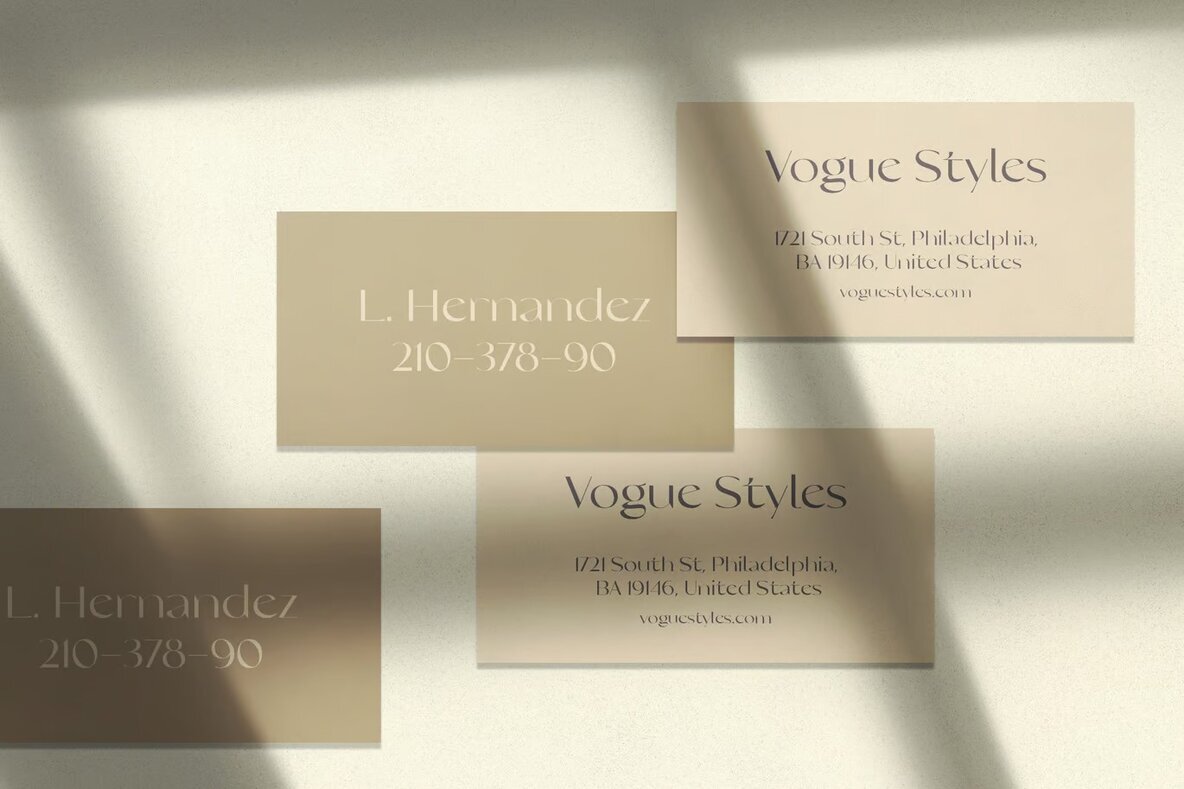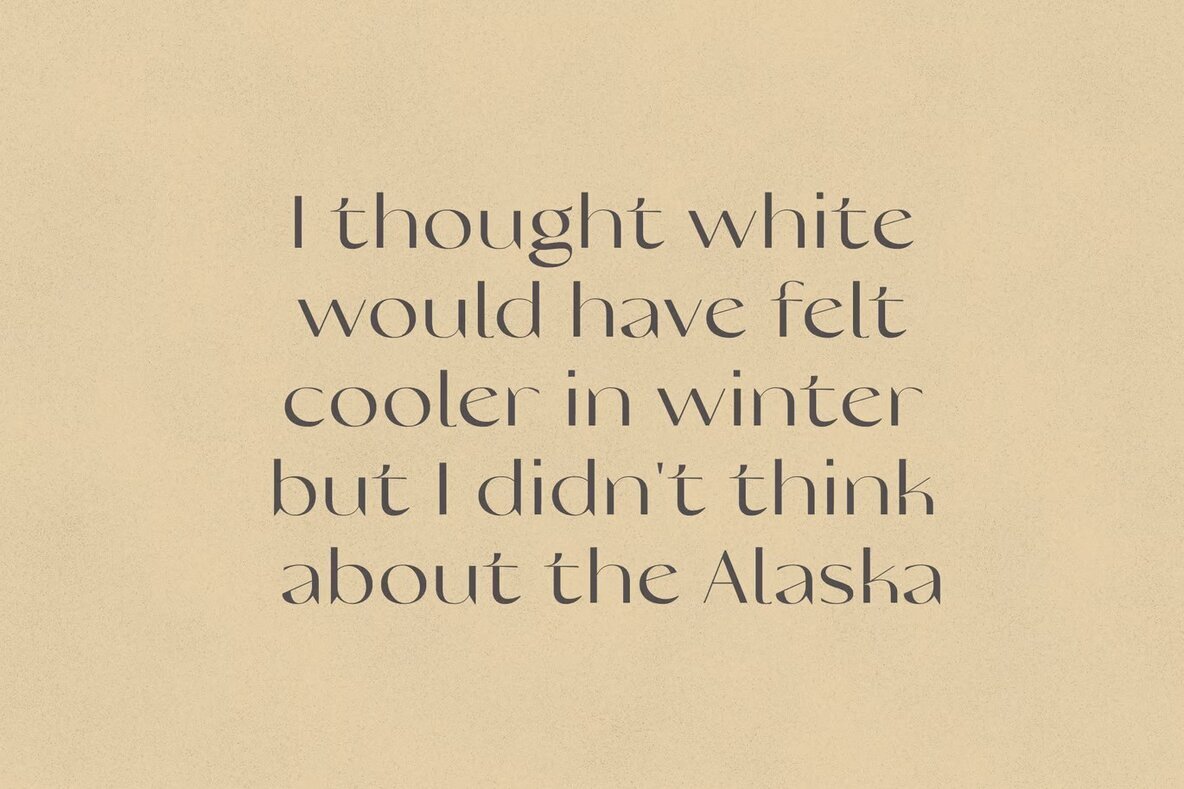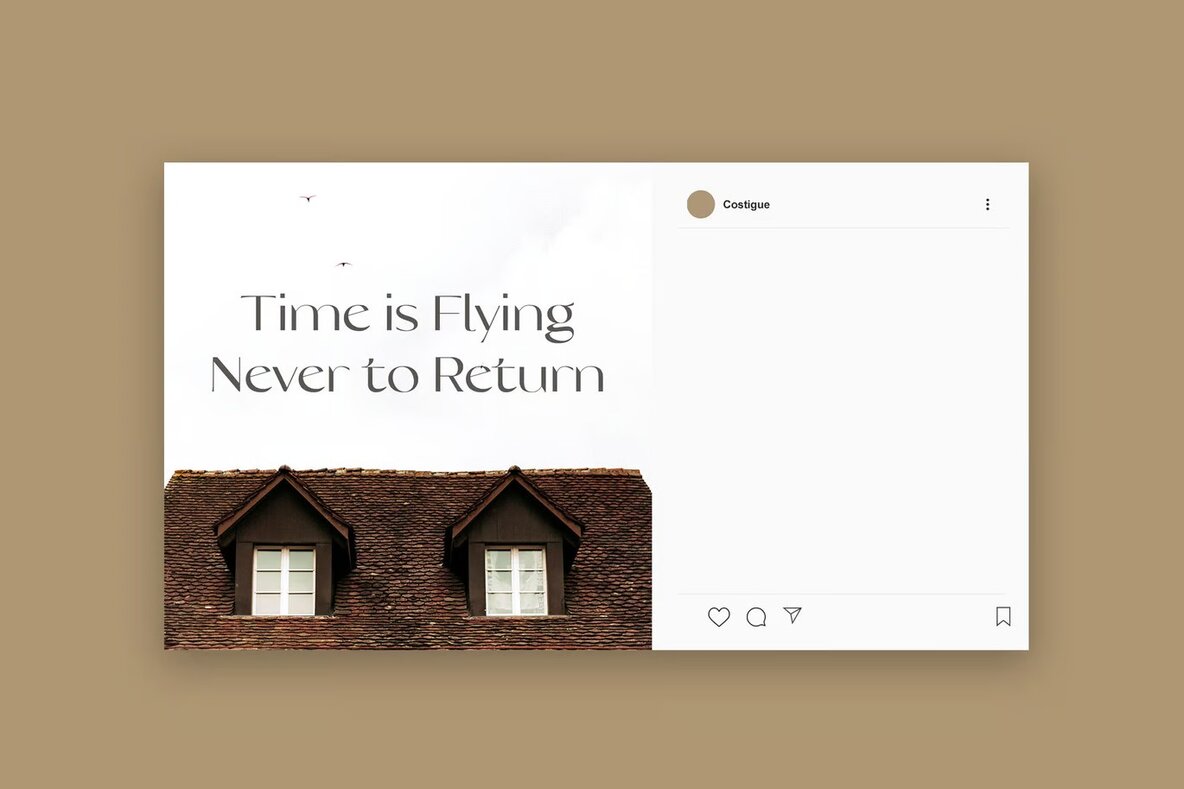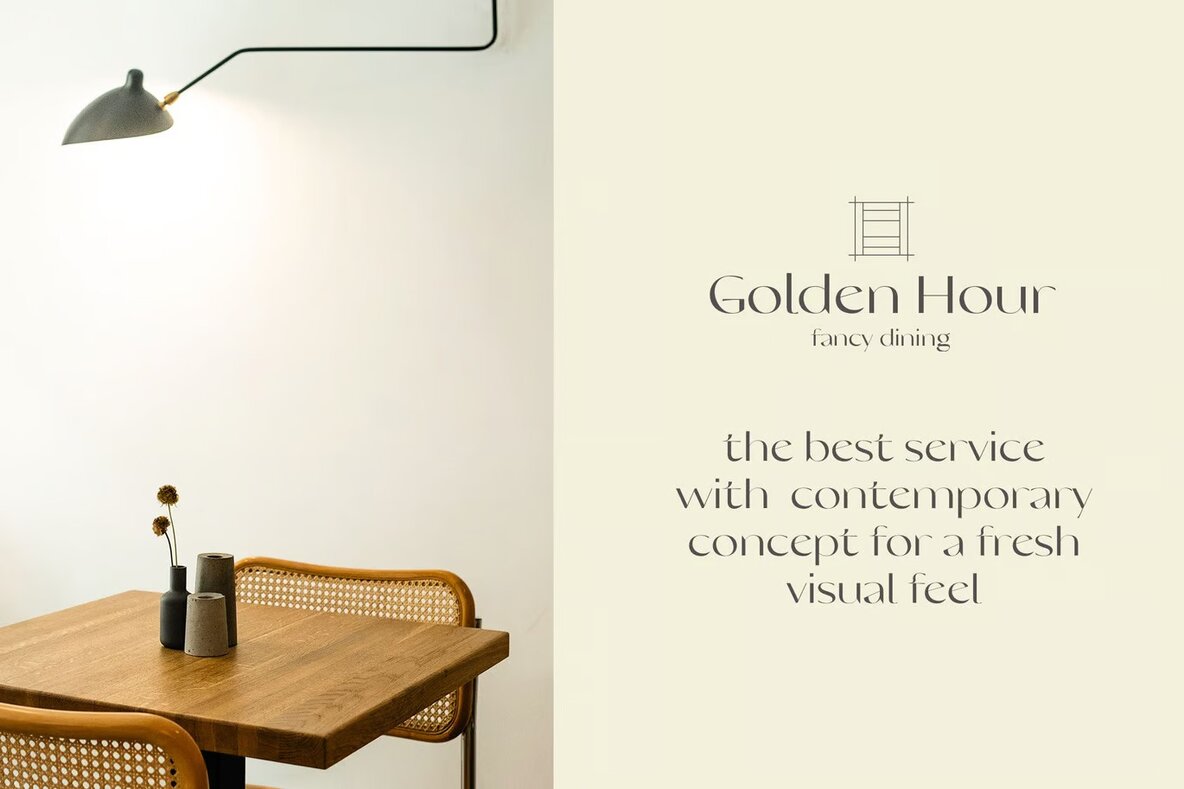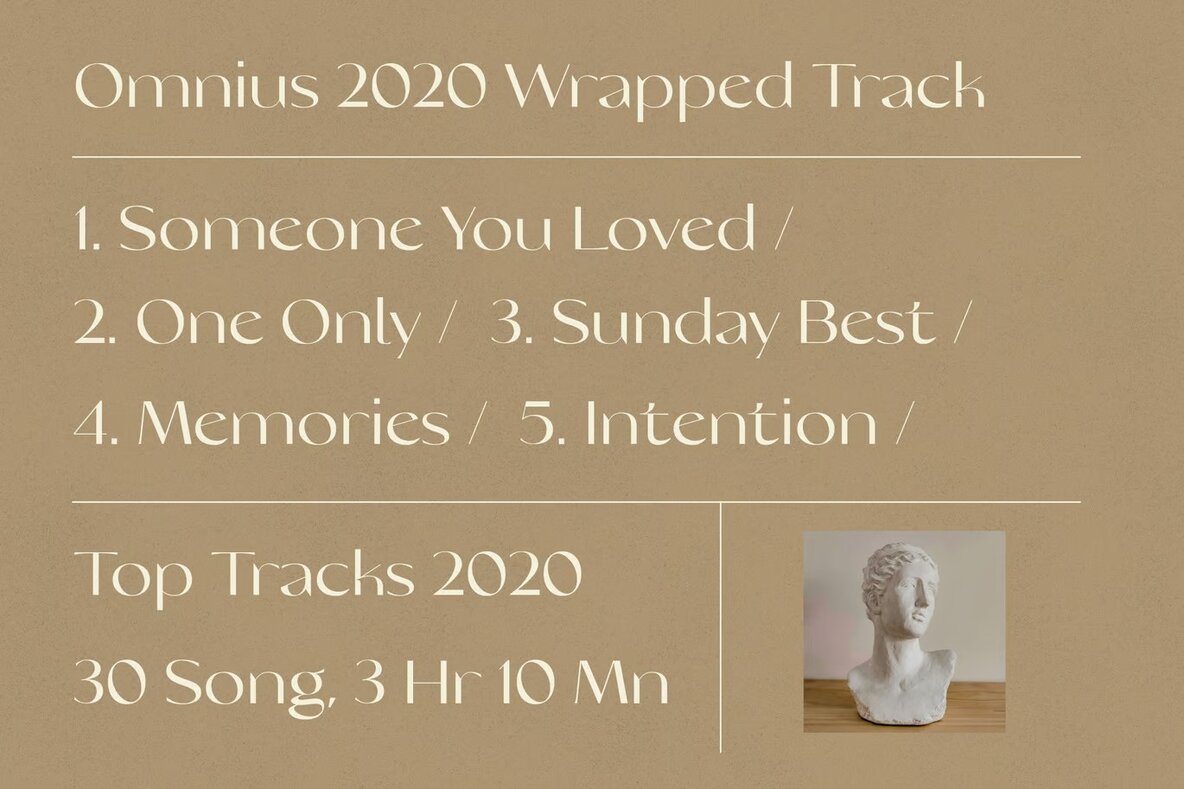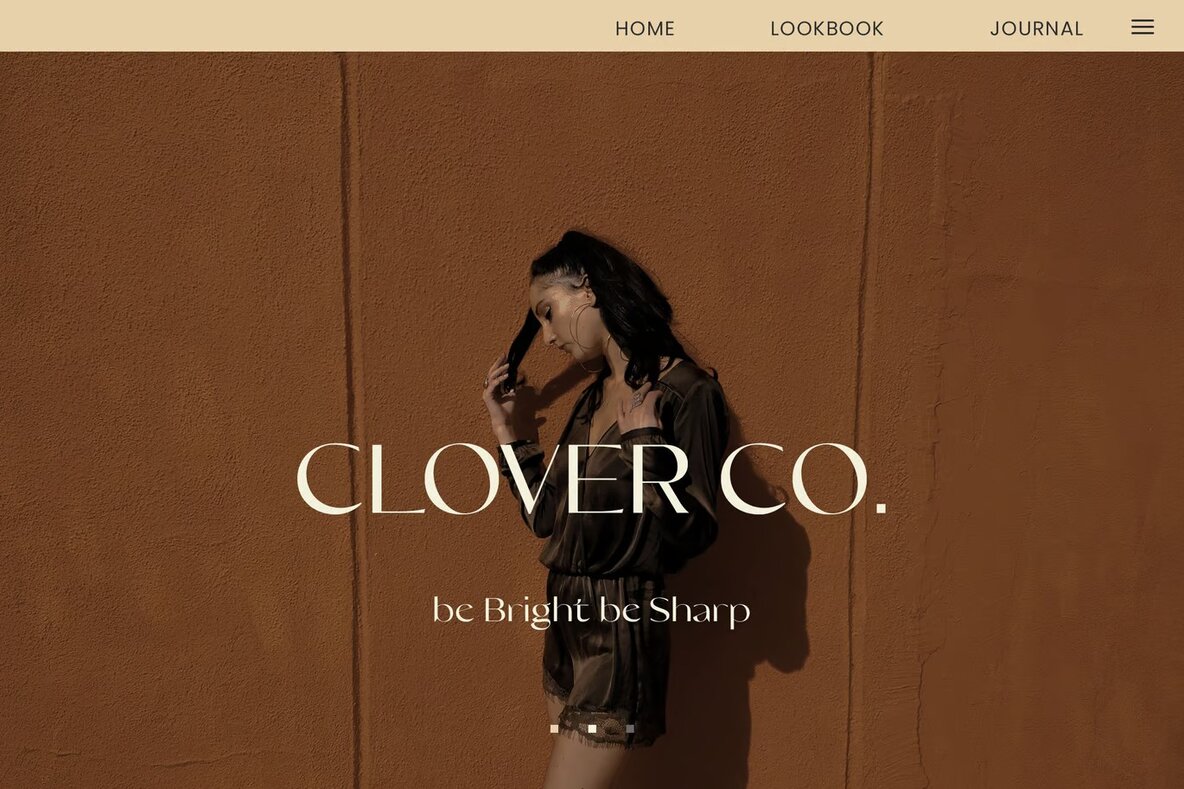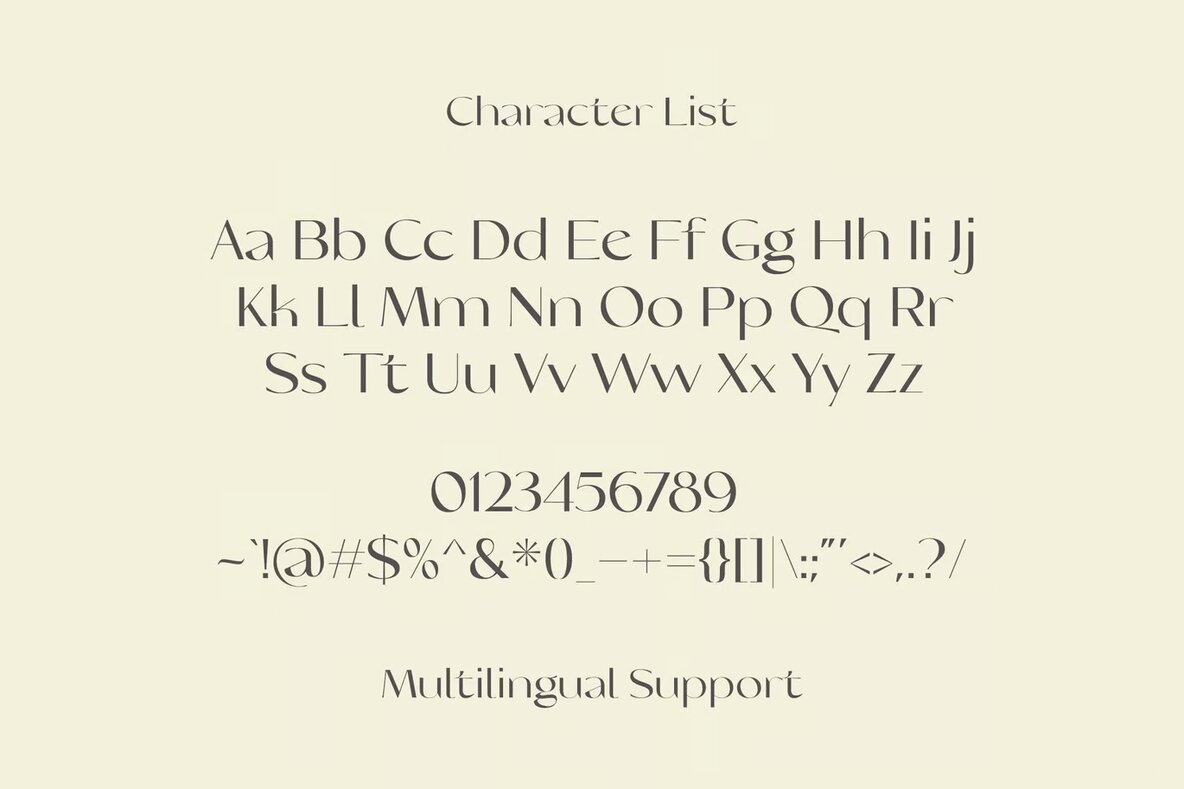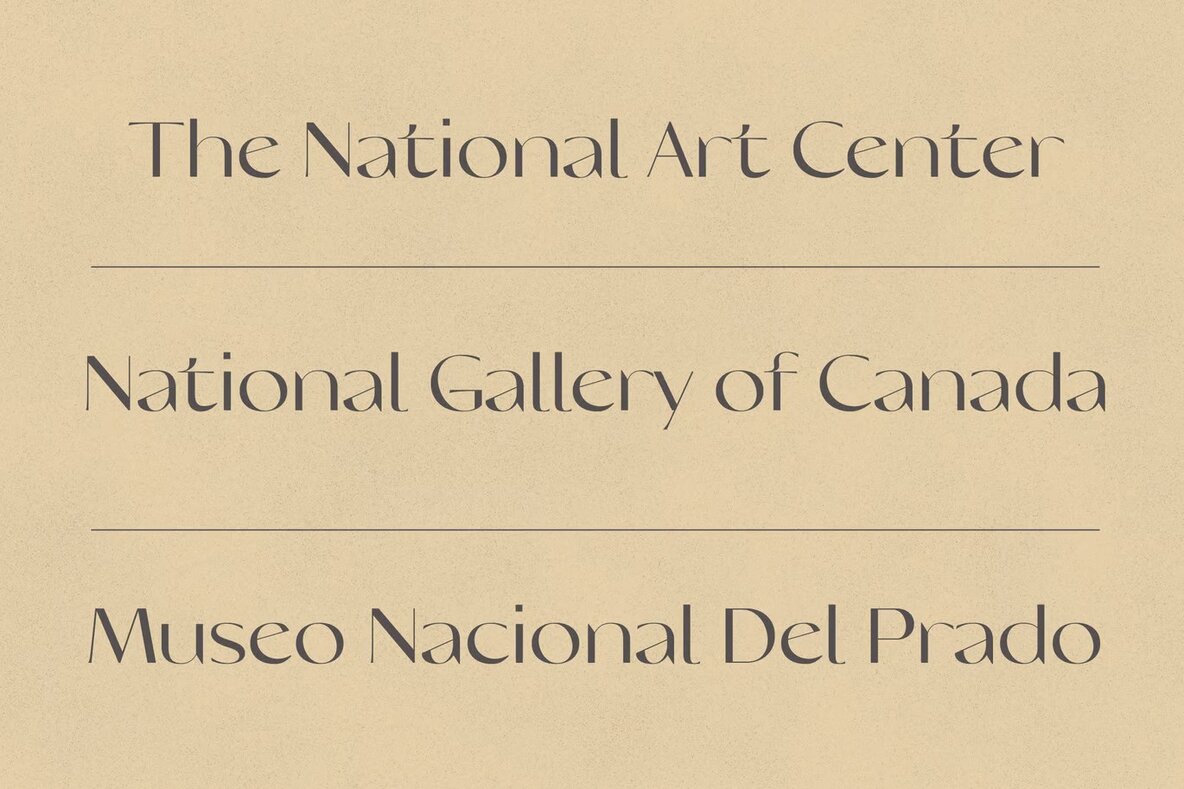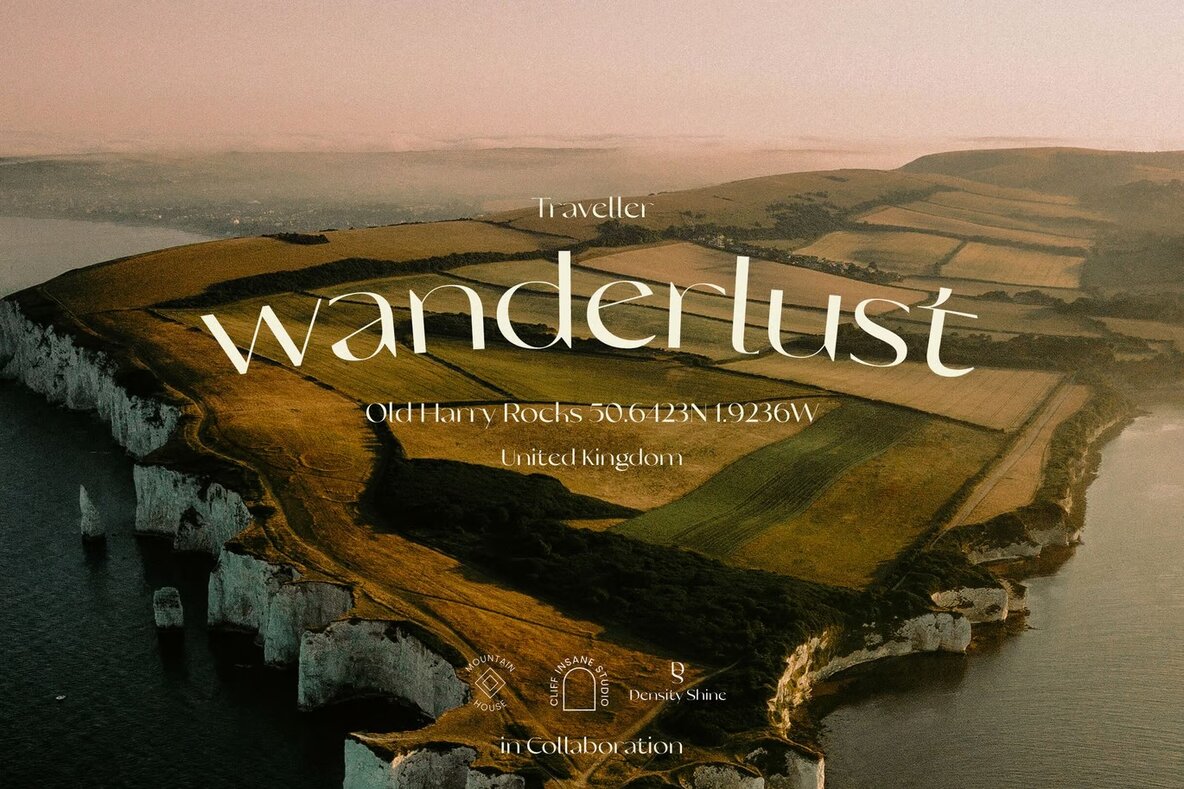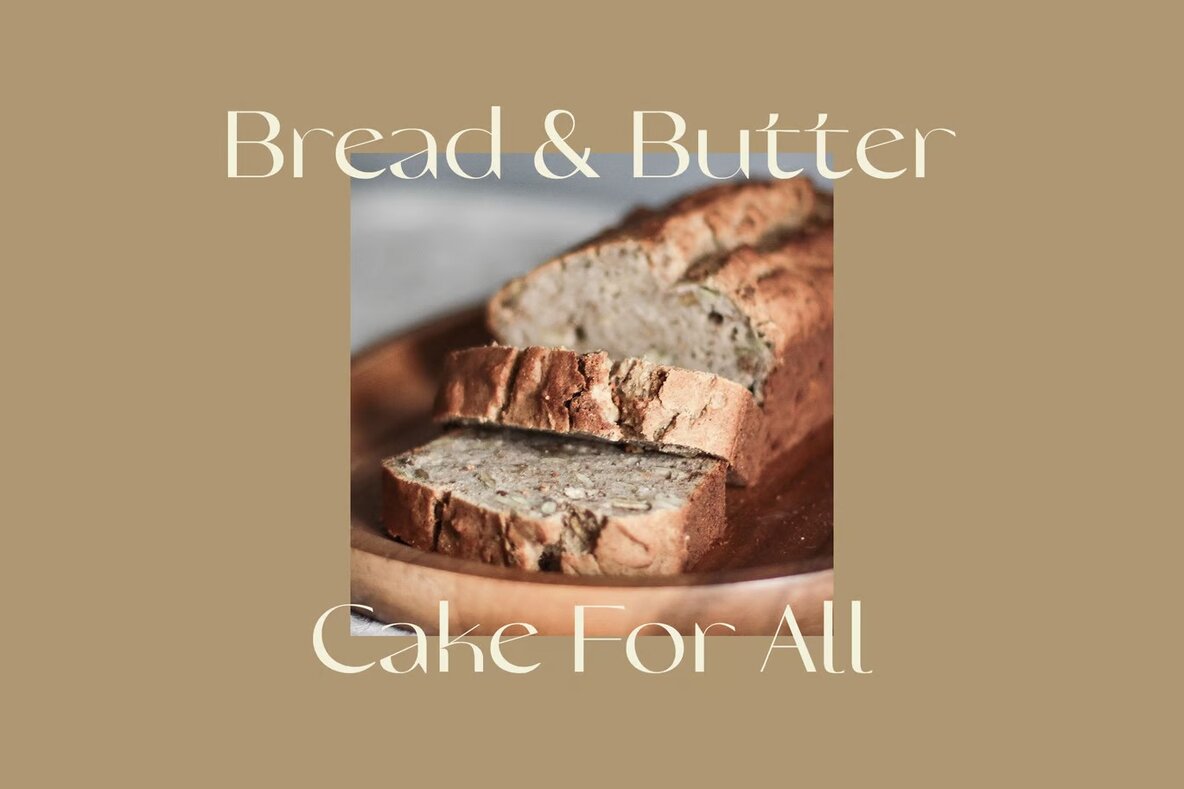
Costigue Font
Costigue Regular
Costigue is a modern luxury sans serif font designed to bring sophistication and elegance to your projects. Ideal for luxury logo branding, it also complements editorial and stationery designs. Its clean lines make it perfect for applications in elegant modern fashion, salon beauty, and feminine advertising designs. Whether it's for blog or website design, card invitations, art quotes, or home decor, Costigue offers versatility and style.
Additionally, Costigue is well-suited for book covers and titles, adding a refined touch to special events such as weddings and birthdays. Its adaptable design lends itself beautifully to a wide range of creative applications, making it an excellent choice for designers seeking a chic and contemporary font for their next project.